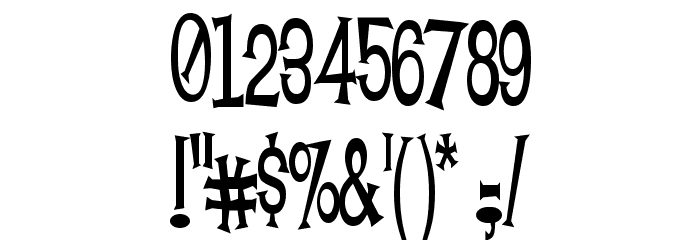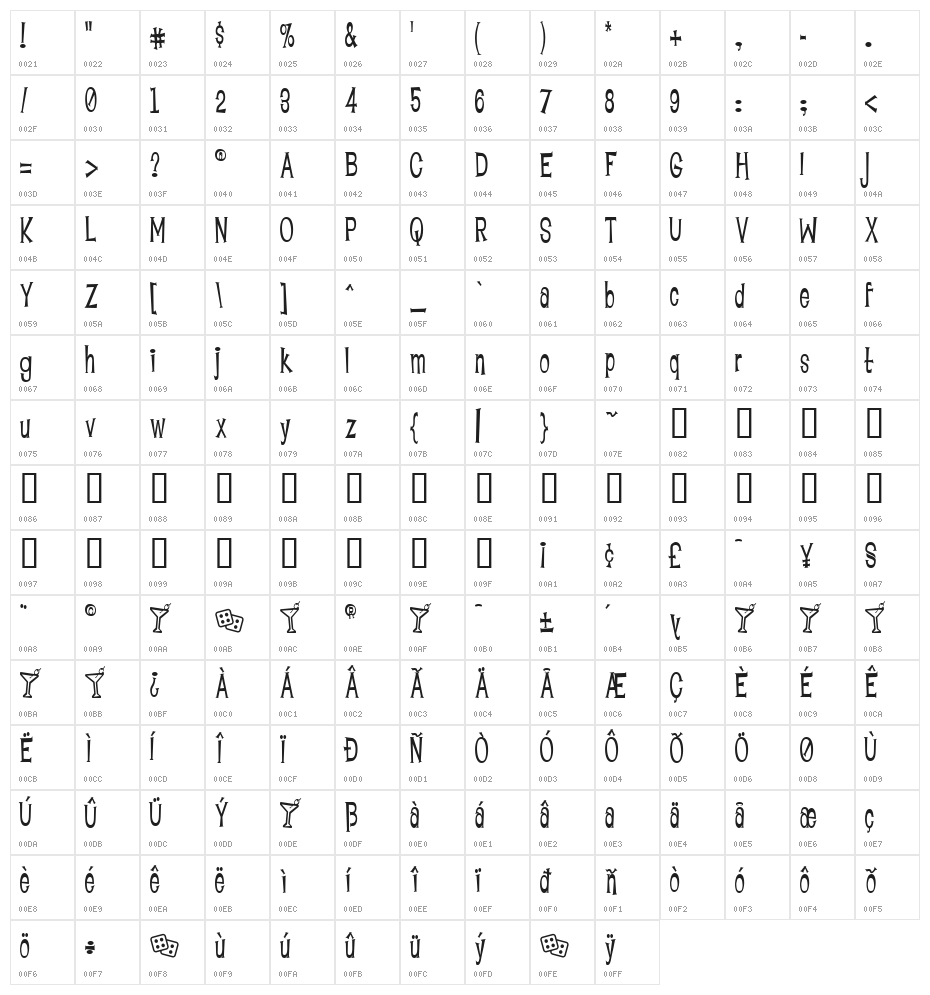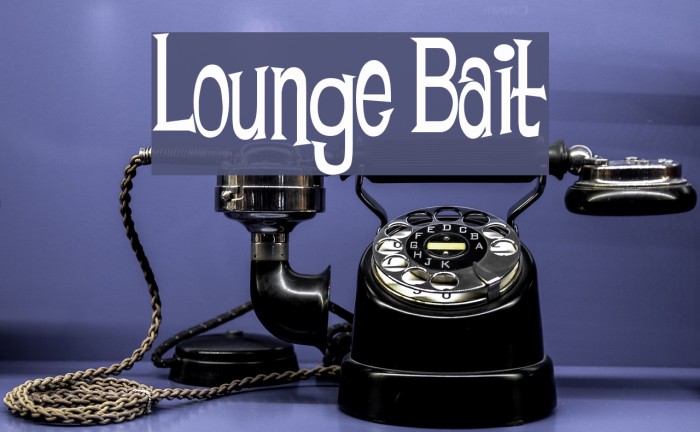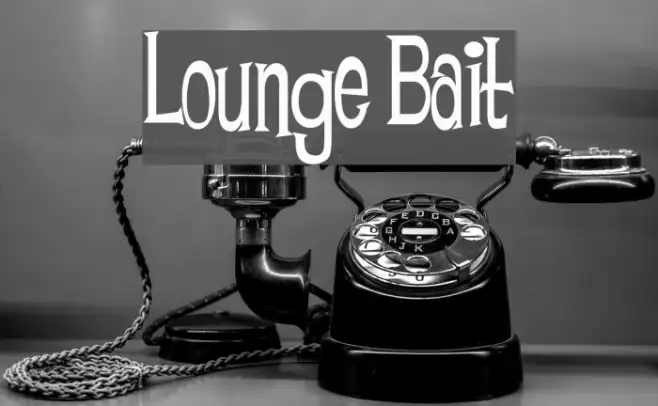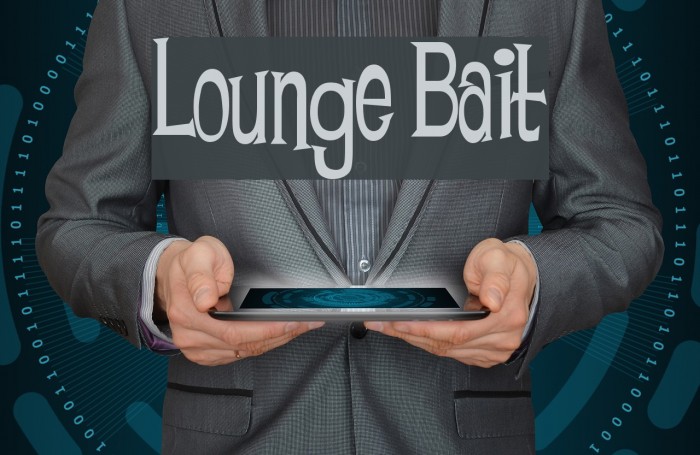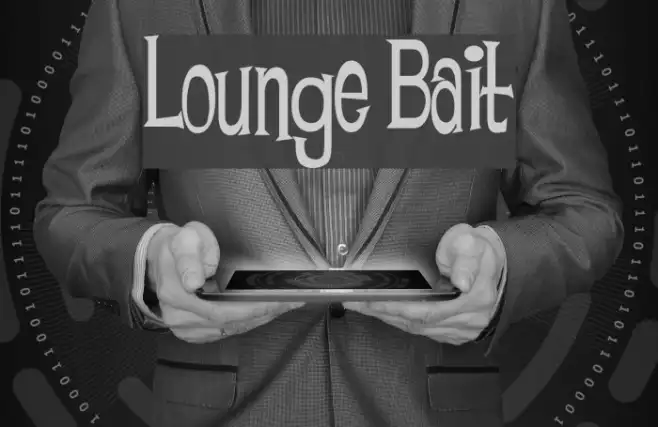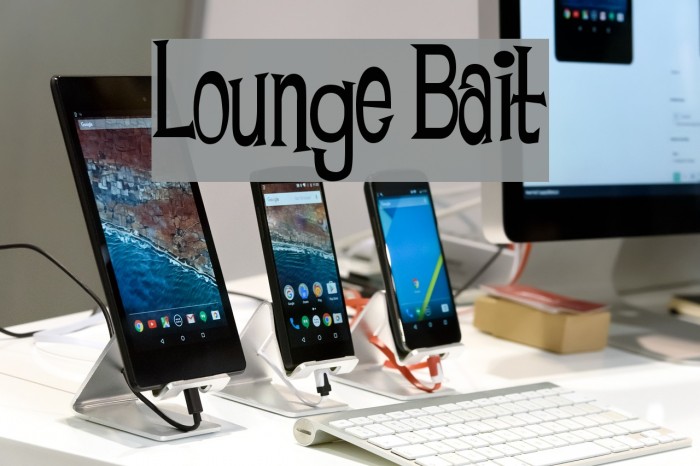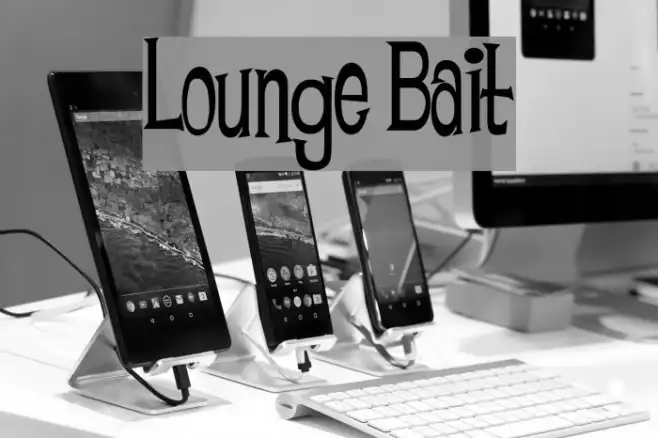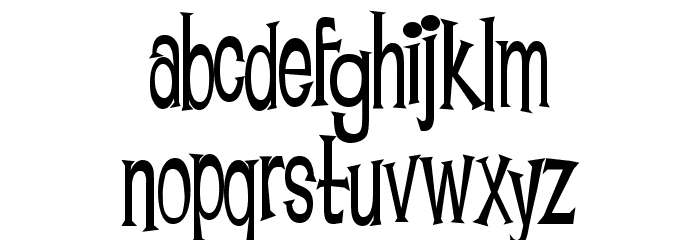
Lounge Bait Font
Lounge Bait Description
This font features a unique and playful design with a slightly retro vibe. The characters are tall and narrow, with a distinct curvature that adds a whimsical touch. The uppercase letters are bold and commanding, while the lowercase letters maintain a consistent style with a slightly more relaxed feel. The numerals are clear and easy to read, matching the overall aesthetic. Special characters are creatively designed, adding to the font's charm. This font is perfect for projects that require a fun and engaging look.
| Overall Style | Retro, Playful |
| Proposed Projects | Ideal for posters, retro-themed designs, children's books, and creative branding. |